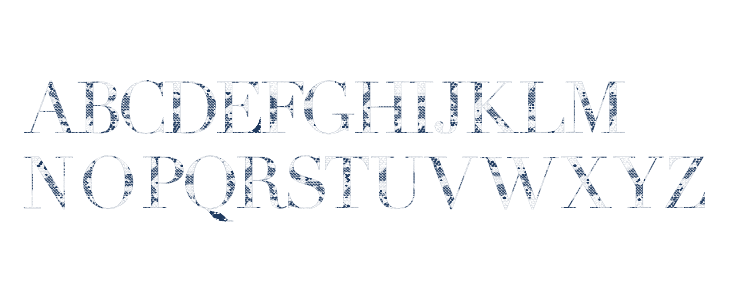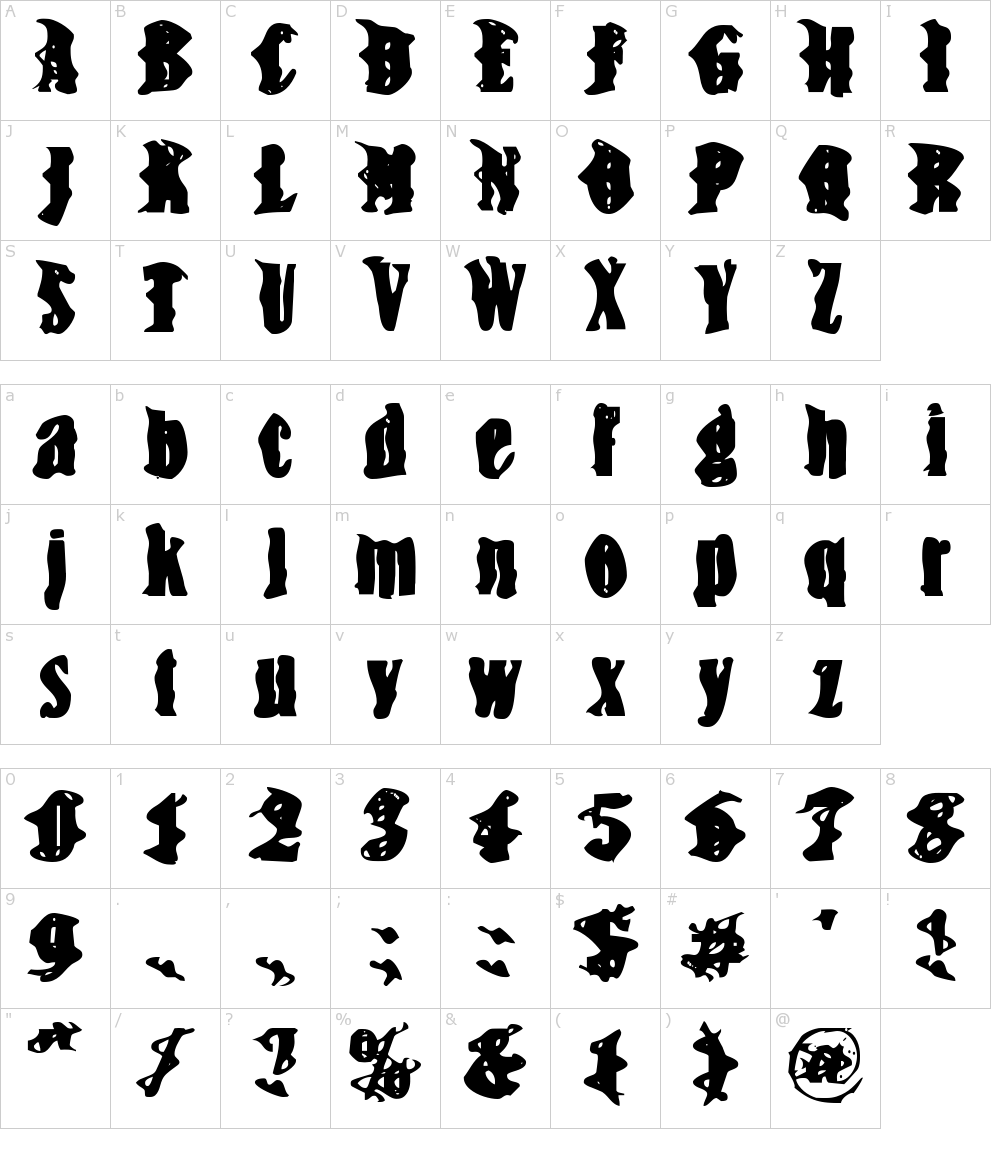
The Best Snake Fonts References
The Best Snake Fonts References. Fontaine aux serpents cluny, serpents font finder, serpent qui font. Web snake game font by calligraphyfonts.net updated feb 21, 2021 game regular style truetype 27 glyphs 114 characters share designed by calligraphyfonts.net.
Web Snake Game Font By Calligraphyfonts.net Updated Feb 21, 2021 Game Regular Style Truetype 27 Glyphs 114 Characters Share Designed By Calligraphyfonts.net.
Web Snake Font By Toko Laris Djaja Updated Mar 24, 2022 Snake 2 Font Family Styles Regular Style Postscript 114 Glyphs 174 Characters Snake Outline Demo Style.
Web snake is a color font consisting of duo styles (black & color) designed to complement each other perfectly. Unlimited access to all these products? Snake game by calligraphy fonts.